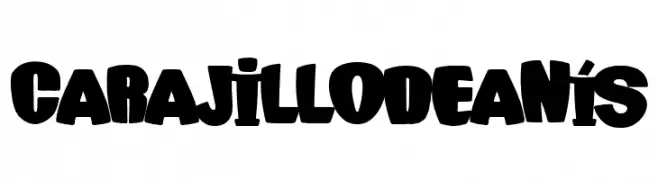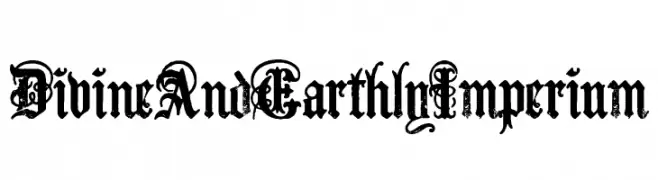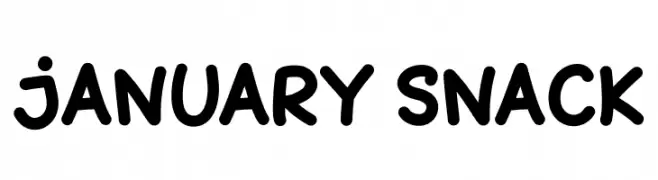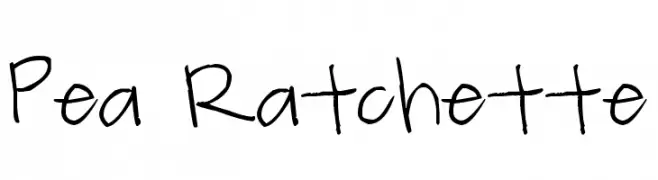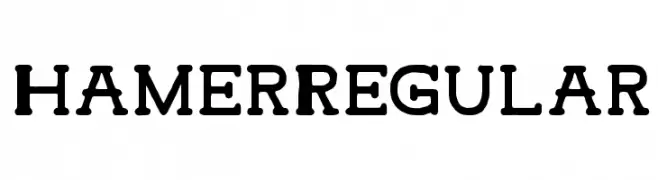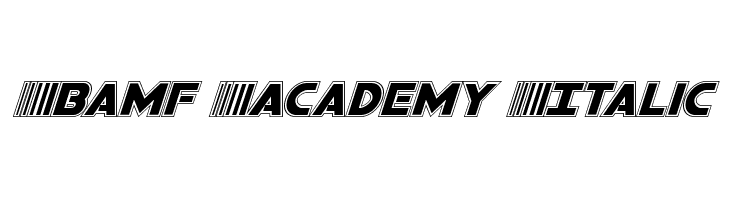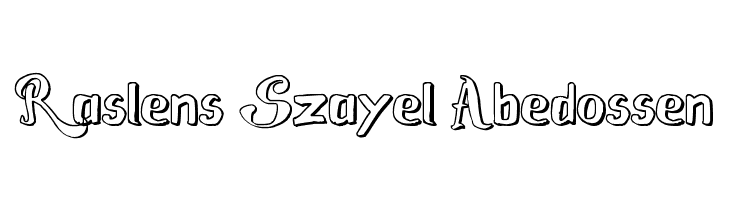
A playful, hand-drawn font with rounded, informal letterforms.
A bold, playful font with thick, rounded strokes and a whimsical style.
A bold, distressed font with a hand-painted, vintage look.
An ornate Blackletter font with intricate, gothic-inspired details.
A playful, bold font with rounded, bubbly characters and a friendly style.
A playful, casual handwritten font with uneven strokes and a friendly vibe.
A bold slab serif font with a vintage yet modern appeal.
An elegant serif font with a classic italic style and refined curves.